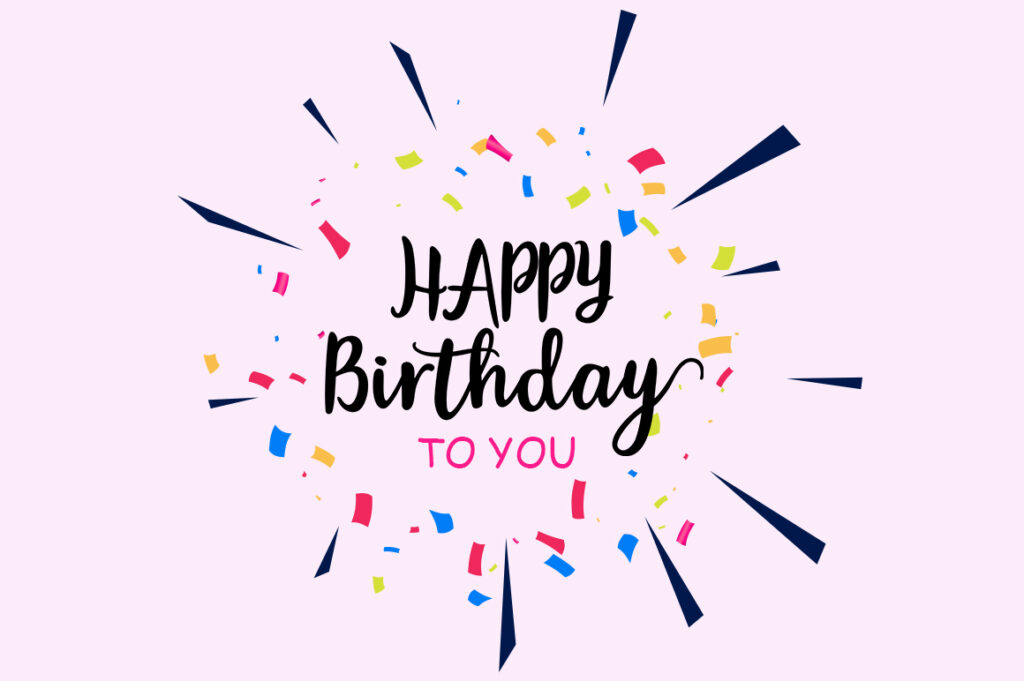
Introducing Blossom Script Font: Elevate Your Designs with Stunning Alternate Characters
In the world of typography, a font can make or break a design. With the right typeface, you can convey your message with elegance, sophistication, and creativity. This is where Blossom Script Font comes in – a modern script font that is taking the design world by storm. In this article, we’ll dive into the features, benefits, and uses of Blossom Script Font, and explore how it can help you create jaw-dropping designs that stand out from the crowd.
What is Blossom Script Font?
Blossom Script Font is a modern typeface that boasts stunning alternate characters, including initial and end swashes. This beautiful script font is designed to add a touch of elegance and sophistication to your designs, making it perfect for a wide range of applications, from branding and advertising to packaging and digital media.
The Power of Alternate Characters
One of the standout features of Blossom Script Font is its extensive range of alternate characters. These characters include initial and end swashes, which can be used to add a touch of personality and flair to your designs. With Blossom Script Font, you can choose from a variety of alternate characters to create unique and eye-catching designs that reflect your brand’s personality.
For example, you can use the initial swashes to add a touch of elegance to your headings, while the end swashes can be used to create a sense of movement and flow. The possibilities are endless, and with Blossom Script Font, you can experiment with different combinations to find the perfect look for your design.
Benefits of Using Blossom Script Font
So, why choose Blossom Script Font for your designs? Here are just a few benefits of using this stunning script font:
- Elegance and Sophistication: Blossom Script Font adds a touch of elegance and sophistication to your designs, making it perfect for high-end brands and luxury products.
- Versatility: With its extensive range of alternate characters, Blossom Script Font can be used for a wide range of applications, from headings and titles to body copy and captions.
- Creativity: Blossom Script Font inspires creativity and experimentation, allowing you to push the boundaries of typography and design.
- Legibility: Despite its elegant and cursive nature, Blossom Script Font remains highly legible, making it perfect for use in both digital and print media.
Design Inspiration with Blossom Script Font
Blossom Script Font is the perfect script to create jaw-dropping designs that help your work stand out. Here are a few design inspiration ideas to get you started:
- Branding and Identity: Use Blossom Script Font to create stunning brand identities that reflect your company’s personality and values.
- Wedding and Event Design: Add a touch of elegance and sophistication to your wedding and event designs with Blossom Script Font.
- Packaging Design: Use Blossom Script Font to create eye-catching packaging designs that stand out on store shelves.
- Digital Media: Experiment with Blossom Script Font in your digital media designs, from social media graphics to website headers.
Typography Tips for Using Blossom Script Font
To get the most out of Blossom Script Font, here are a few typography tips to keep in mind:
- Experiment with Alternate Characters: Don’t be afraid to experiment with different alternate characters to find the perfect look for your design.
- Pay Attention to Kerning and Tracking: Make sure to adjust the kerning and tracking to ensure that your text is legible and visually appealing.
- Use it Sparingly: Use Blossom Script Font sparingly to add emphasis and create visual interest in your designs.
- Pair it with Other Fonts: Experiment with pairing Blossom Script Font with other fonts to create a unique and visually appealing typography combination.
In conclusion, Blossom Script Font is a modern typeface that features stunning alternate characters, making it the perfect script to create jaw-dropping designs that help your work stand out. With its elegance, versatility, and creativity, Blossom Script Font is perfect for a wide range of applications, from branding and advertising to packaging and digital media. By following the typography tips outlined above, you can get the most out of Blossom Script Font and take your designs to the next level.